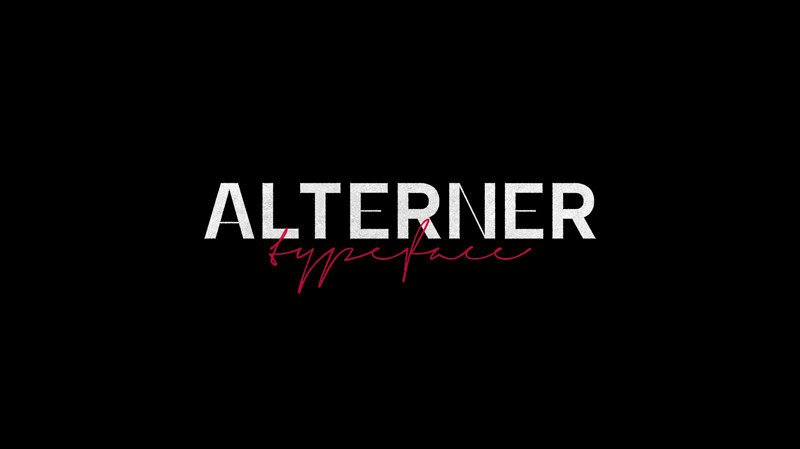
Alterner Sans Serif Font
Say Hello Guy’s. Thank you for looking Alterner Sans Serif Font. This is a refreshing sans serif font that is ready for anything! This handy semi-condensed font includes clean & textured fonts, with oblique versions for each.
Includes uppercase letters, numerals, a large range of punctuation. sans serif font with modern style. Created for poster, web design, branding, illustrations, badges and some other works.